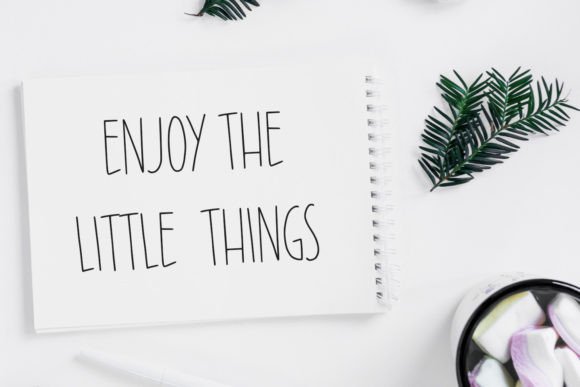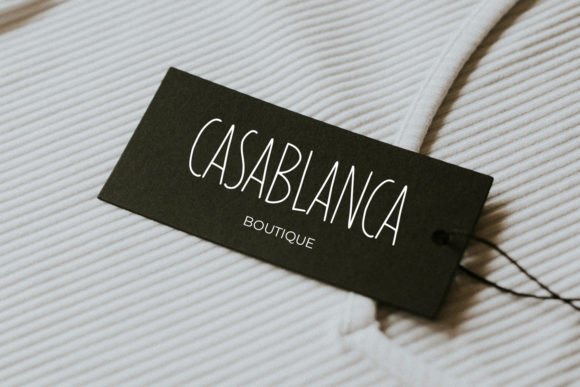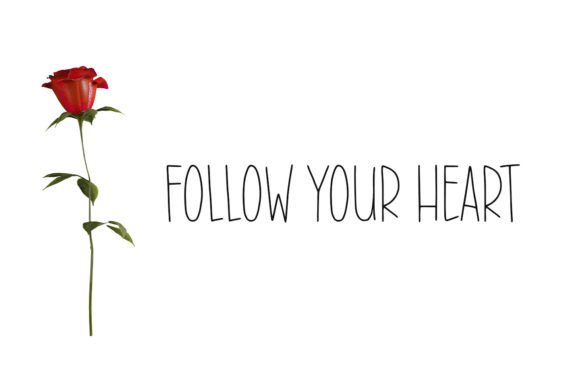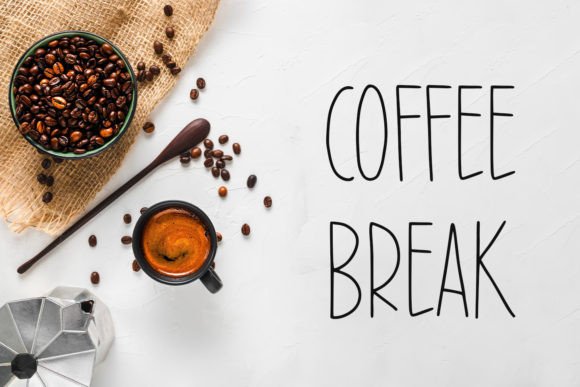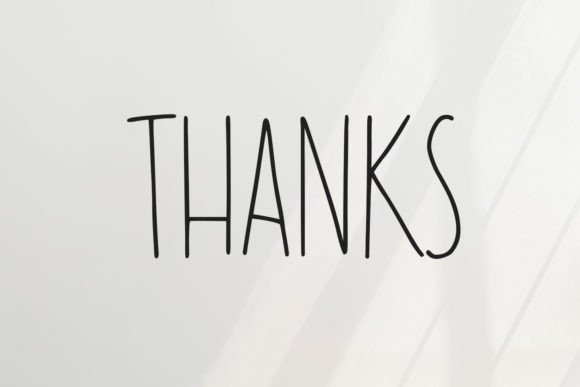
When Creativity Hits
Have you ever been working on a project and suddenly felt an overwhelming urge to add a personal touch? That’s when the magic happens. It’s a moment when your design takes a turn from good to great, and you know exactly what’s missing – a dash of personality.
For designers, there are countless ways to infuse that extra oomph into their work. One of the simplest yet most effective methods is using the right font. Enter the Homesick Font, a beautiful handwritten sans serif in monoline. Designed to evoke a sense of warmth and approachability, this font is perfect for a wide range of projects, from markers and t-shirt designs to quotes and social media posts.
The Homesick Font is a valuable addition to any designer’s toolkit, offering a unique and versatile way to add a personal touch to their work. Whether you’re a seasoned pro or just starting out, this font is sure to become a go-to favorite.
Homesick Font Key Features
- Font Family: Homesick Font is a sans-serif font family designed to evoke a sense of nostalgia and homesickness.
- Font Sizes: Available in multiple weights, from Extra Light to Extra Bold, with a total of 10 font weights to suit various design needs.
- Unique Characteristics: The font features a unique blend of modern and vintage elements, with subtle imperfections and irregularities that give it a handmade feel.
- Language Support: Supports a wide range of languages, including Latin, Cyrillic, and Greek alphabets, making it suitable for global design applications.
Homesick Font Review
I recently had the chance to dive into the Homesick Font, and I must say, it’s a unique and interesting addition to the world of typography. ✨ The font’s nostalgic feel immediately caught my attention, and I appreciate how it successfully evokes a sense of warmth and comfort. ✨ The varied weights and styles make it incredibly versatile, allowing designers to experiment with different moods and atmospheres. ✨ I also appreciate the extensive character set, which includes a wide range of symbols and icons.
- Unique, nostalgic aesthetic
- Highly versatile with varied weights and styles
- Extensive character set with symbols and icons
However, I do have a few concerns. ⚠️ The font’s expressiveness can also make it feel somewhat overwhelming, and it may not be the best choice for projects that require a more straightforward or modern approach. ⚠️ Additionally, some users may find the font’s condensed forms to be slightly too condensed, potentially affecting readability in certain contexts.
Overall, I believe the Homesick Font is a solid choice for designers looking to add a touch of nostalgia and warmth to their projects. While it may not be the perfect fit for every design, it’s certainly worth exploring and experimenting with.
The Homesick Font is a unique, distressed font that is perfect for adding a vintage touch to your designs. Use it for:
– Creating retro-style posters and flyers.
– Designing a vintage-themed website or blog.
– Adding a distressed touch to your social media graphics.
Alternatives to Homesick Font for Designers
Great Vibes is a beautiful, handwritten font that can add a touch of elegance and sophistication to any design. It’s perfect for use in titles, headings, and quotes where a more personal and emotional tone is desired.
Great Vibes is similar to Homesick Font in its whimsical and handwritten feel, but it’s more refined and polished. It’s a great choice for designers who want to add a bit of flair to their designs without being too over-the-top.
Carolyna Pro is a modern, elegant script font that’s perfect for use in titles, headings, and body text. It’s a great choice for designers who want to add a touch of sophistication and refinement to their designs.
Carolyna Pro is similar to Homesick Font in its elegant and refined feel, but it’s more formal and structured. It’s a great choice for designers who want to create a sense of luxury and high-end style.